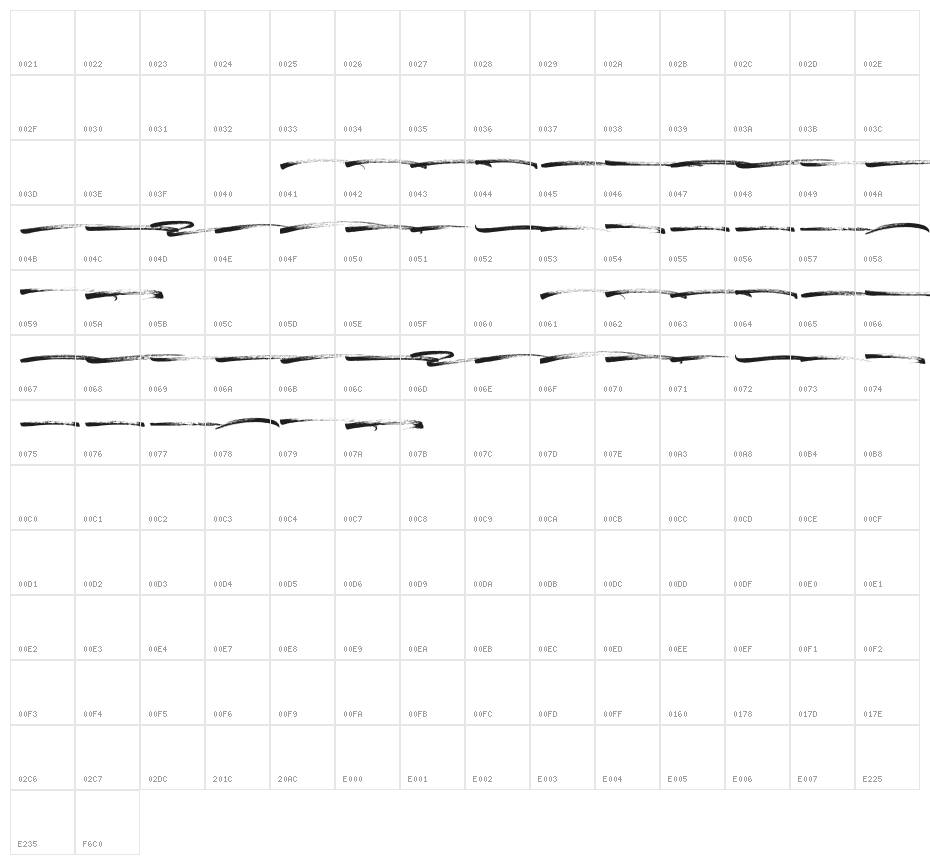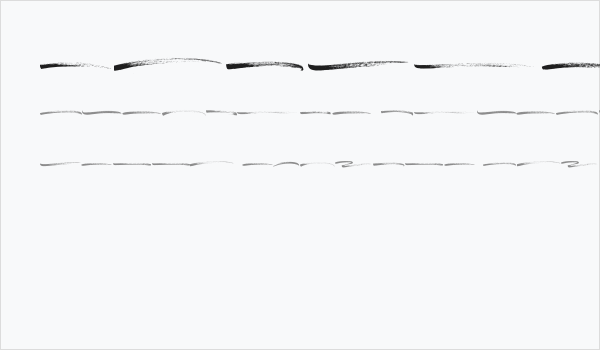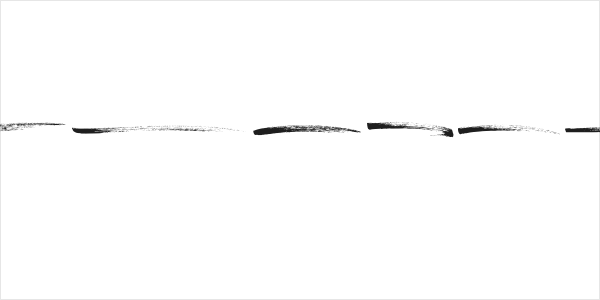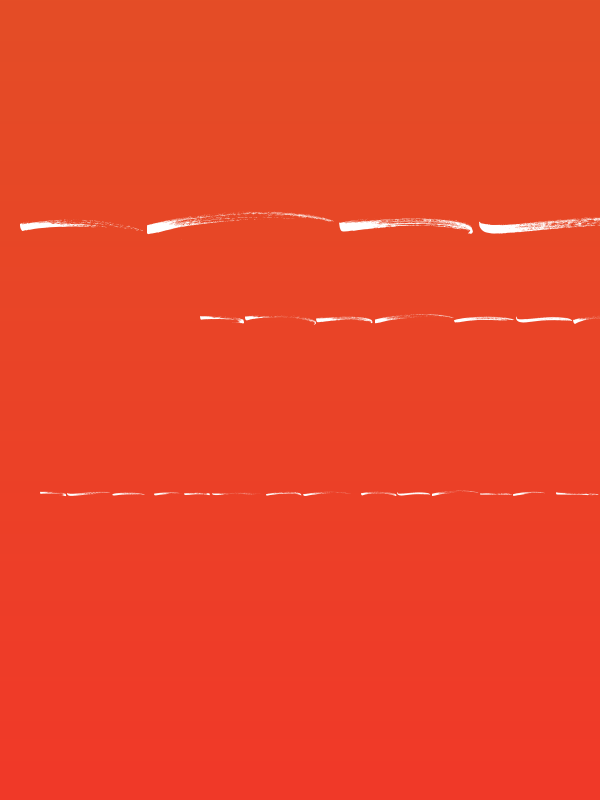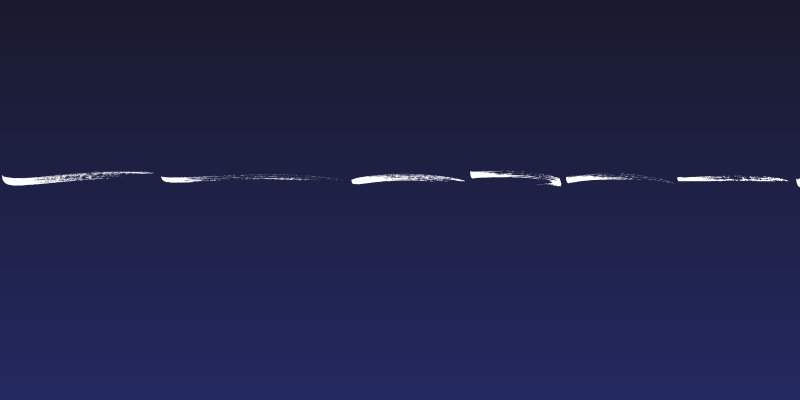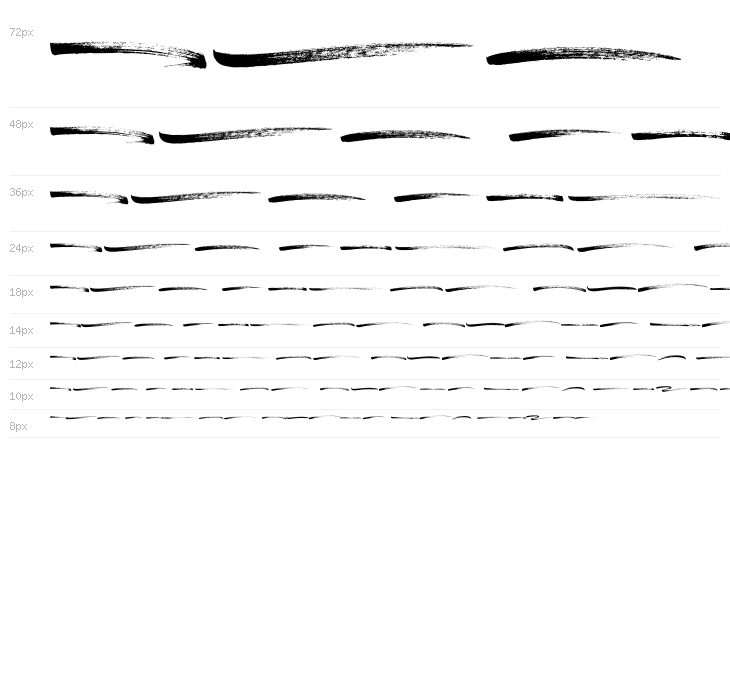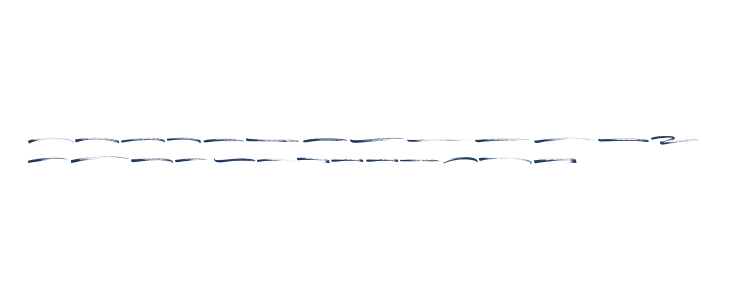
SophietSwash Font
SophietSwash Description
This font features a unique, artistic design that mimics the appearance of a continuous, flowing line. Each character is crafted with a hand-drawn aesthetic, giving it a whimsical and organic feel. The strokes vary in thickness, adding a dynamic and lively quality to the text. The overall look is reminiscent of a sketch or a doodle, making it stand out with its playful and informal style. This font is perfect for creative projects that require a touch of personality and charm. Its distinctive appearance makes it ideal for use in designs that aim to capture attention and convey a sense of individuality.
| Overall Style | Artistic, Whimsical |
| Use Case | Logos, Posters, Artistic Branding |
| Proposed Projects | Ideal for creative projects such as invitations, greeting cards, posters, and artistic branding. |